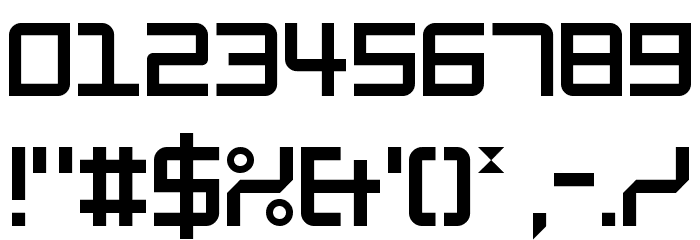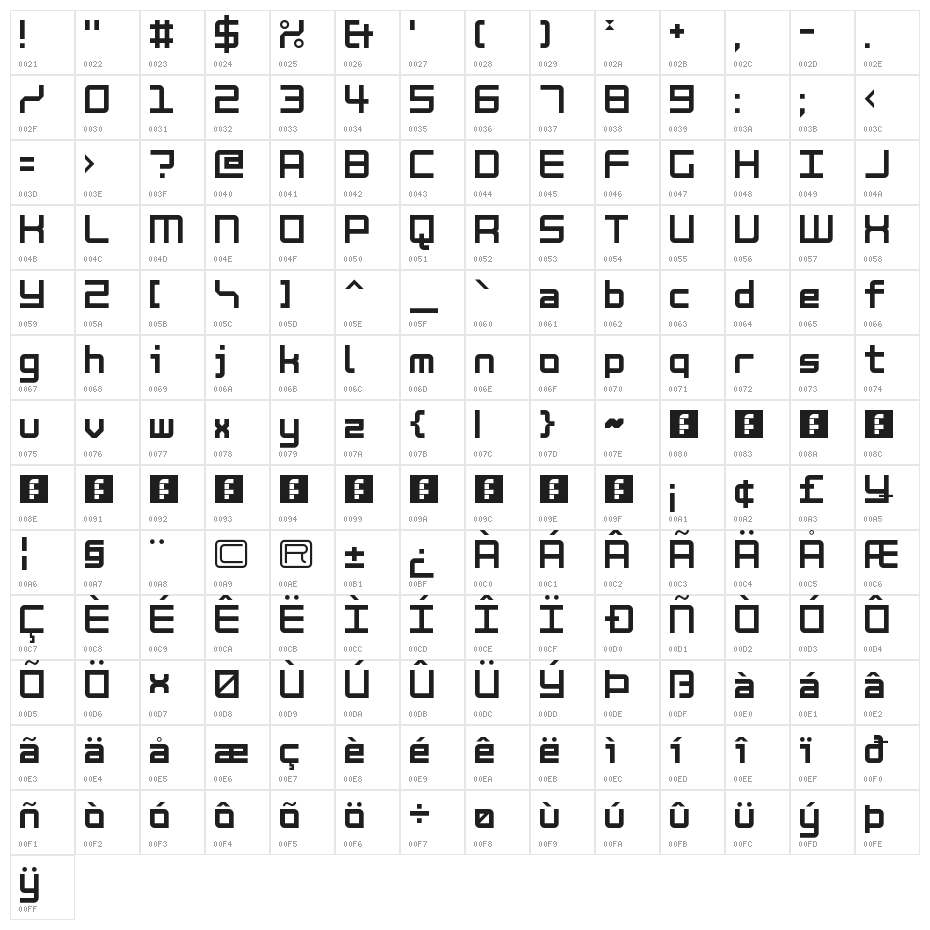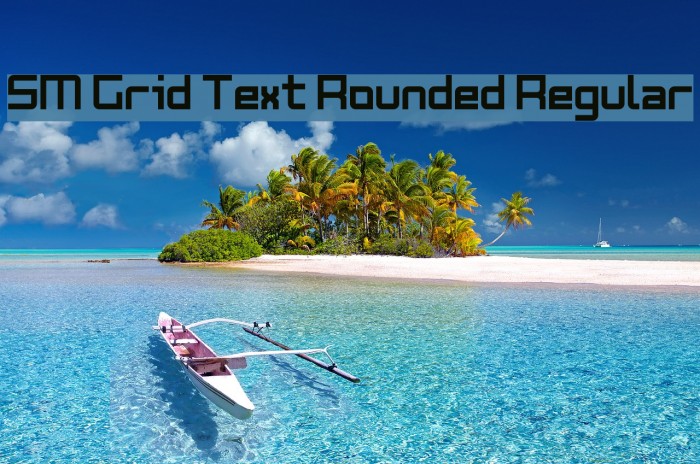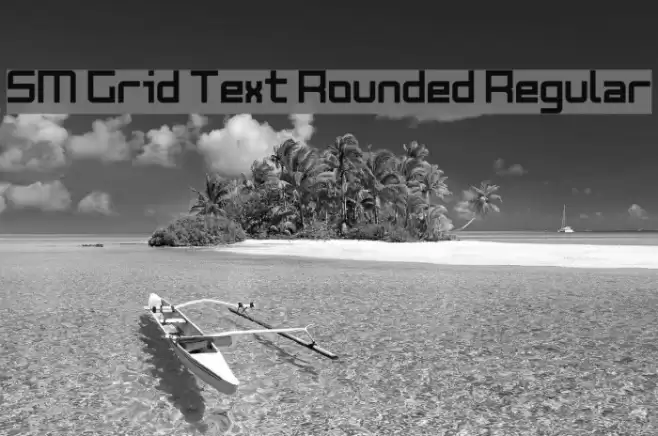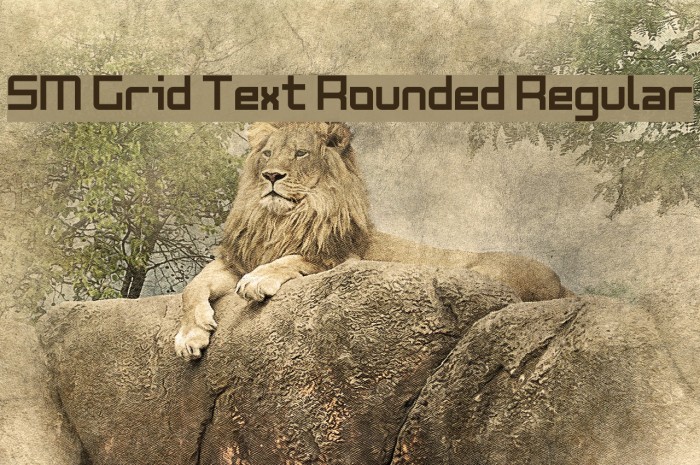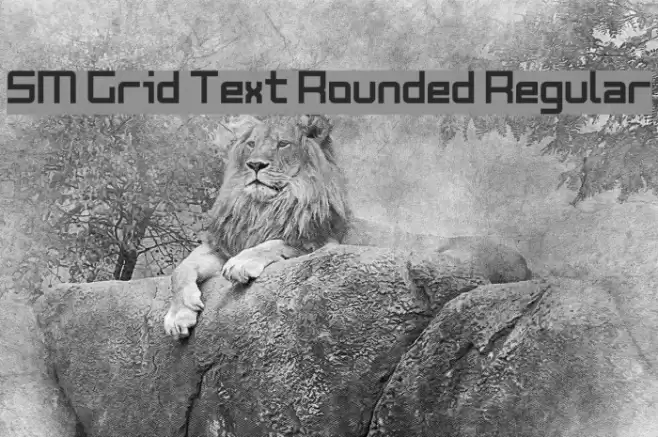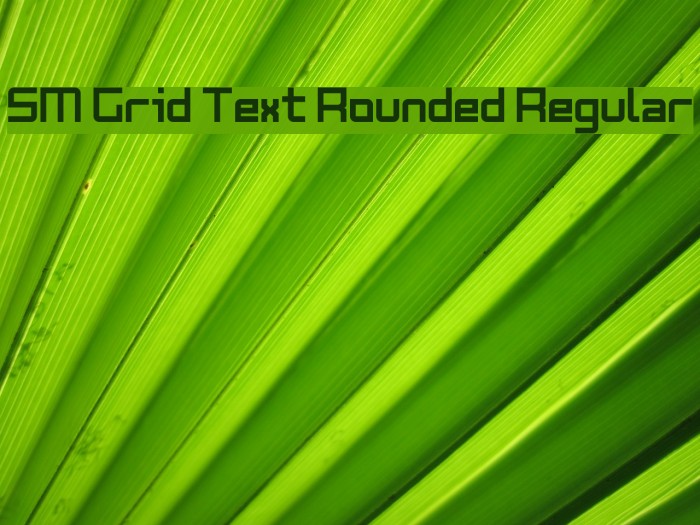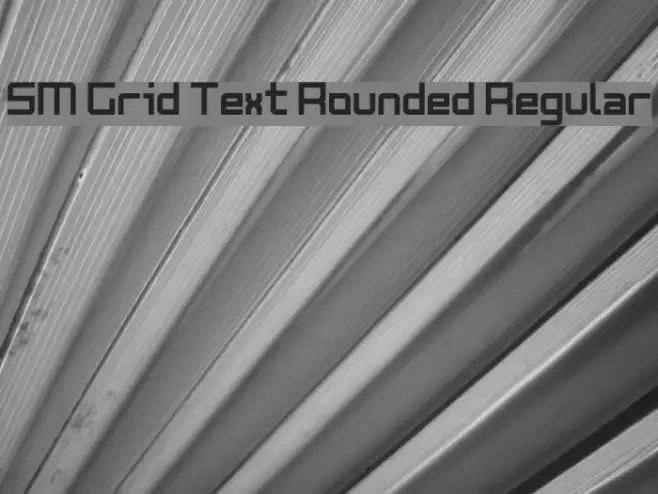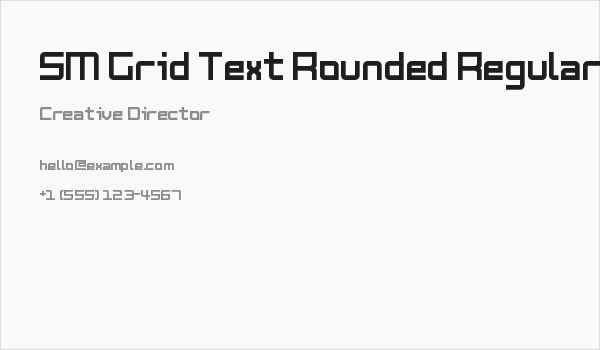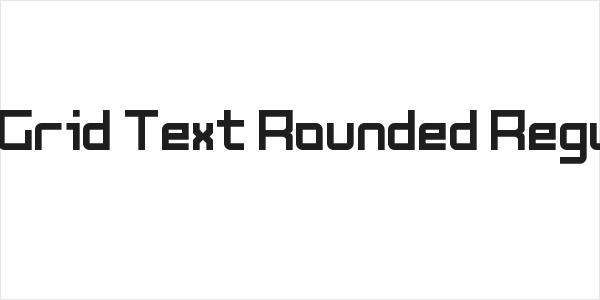
SM Grid Text Rounded Regular Font
SM Grid Text Rounded Regular Description
This font features a modern, geometric design with rounded edges, giving it a friendly and approachable appearance. The characters are constructed with a consistent stroke width, contributing to a clean and uniform look. The uppercase and lowercase letters maintain a balanced proportion, while the numerals and special characters are designed to complement the overall style. The font's grid-like structure is evident, providing a sense of order and precision. Its rounded corners soften the otherwise rigid geometric shapes, making it suitable for a variety of applications where a contemporary and inviting aesthetic is desired.